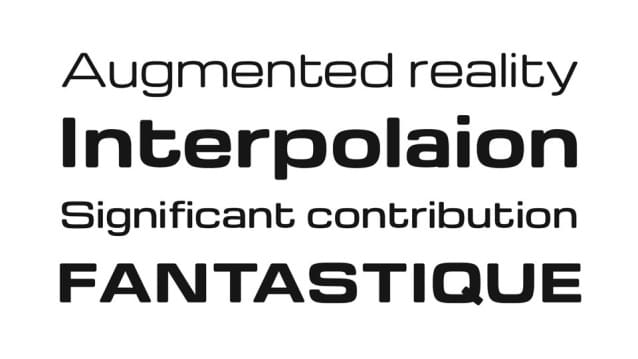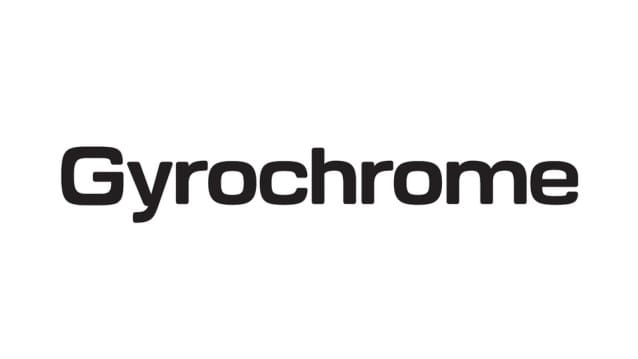
Gyrochrome Font Family
Gyrochrome Font Family is a rounded, geometric sans-serif typeface inspired by Vernon Adams’ Michroma. Its clean, modern lines and rounded shapes create a friendly, approachable aesthetic, while its geometric precision ensures a structured and contemporary feel. The smooth curves and even spacing provide excellent legibility, making it perfect for both digital and print designs.
Ideal for tech-focused projects, minimalist branding, web design, and contemporary signage, Gyrochrome balances simplicity with sophistication. The rounded edges soften the geometric foundation, making it versatile for a wide range of applications where clarity and modernity are key.
Add a touch of modern design with Gyrochrome Font —a rounded, geometric typeface with timeless appeal.